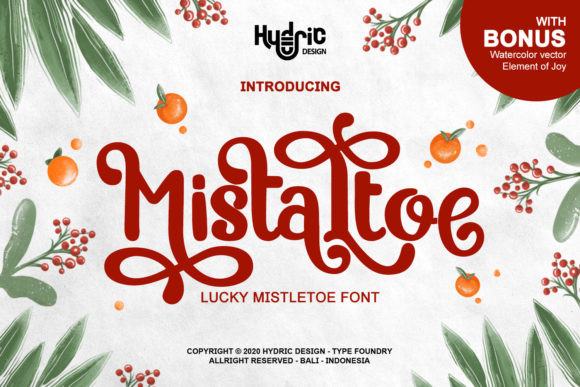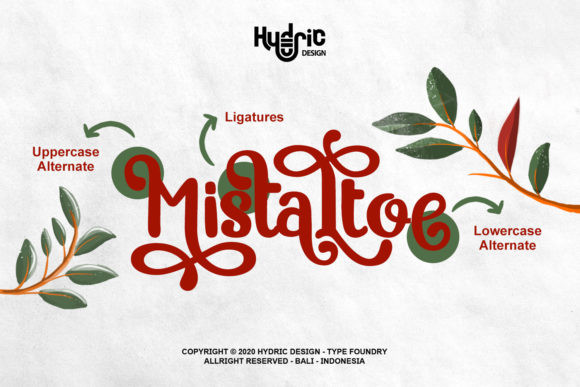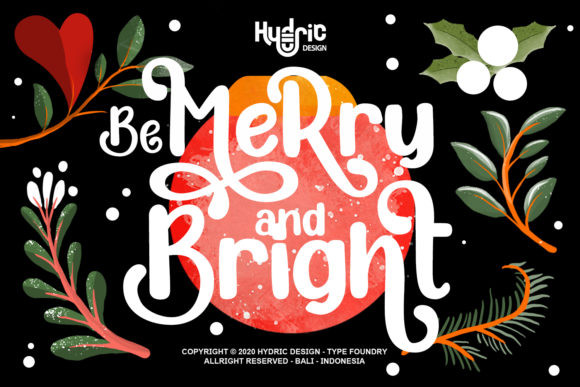
Mistaltoe Font
Mistaltoe is a flowing display font that blends traditional influences into a contemporary aesthetic. It will add a magical touch to your designs!